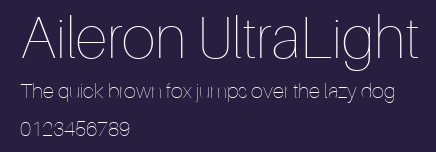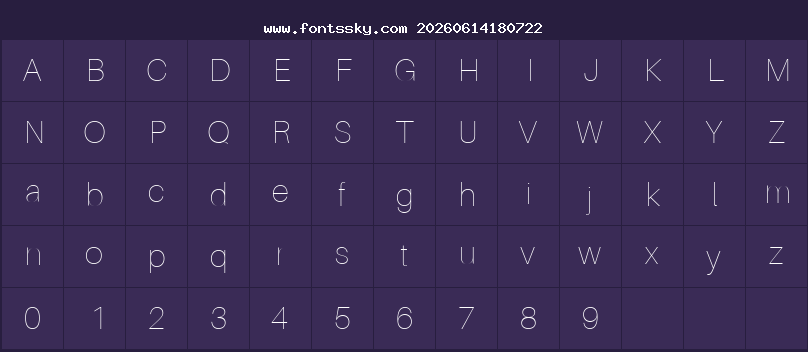
• Designer: Sora Sagano
About Aileron UltraLight.ttf
Aileron UltraLight.ttf is a modern, elegant sans-serif font designed for ultimate readability and visual harmony. Perfect for branding, headlines, web design, and print materials.